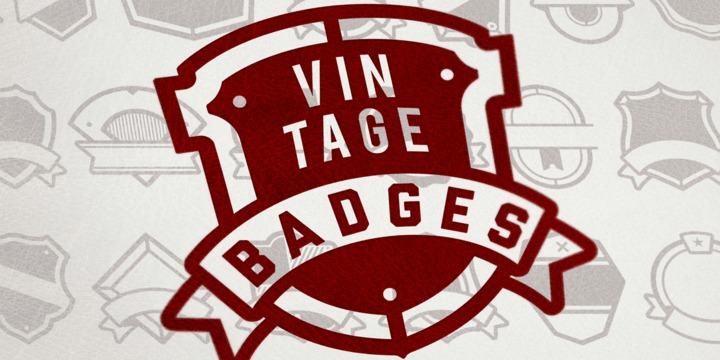
An awesome premium quality set of 26 layered badges. It’s a very versatile, “old timey” look, vintage and that can be used as logos, member badges, company badges, stamps, price reductions and much more.